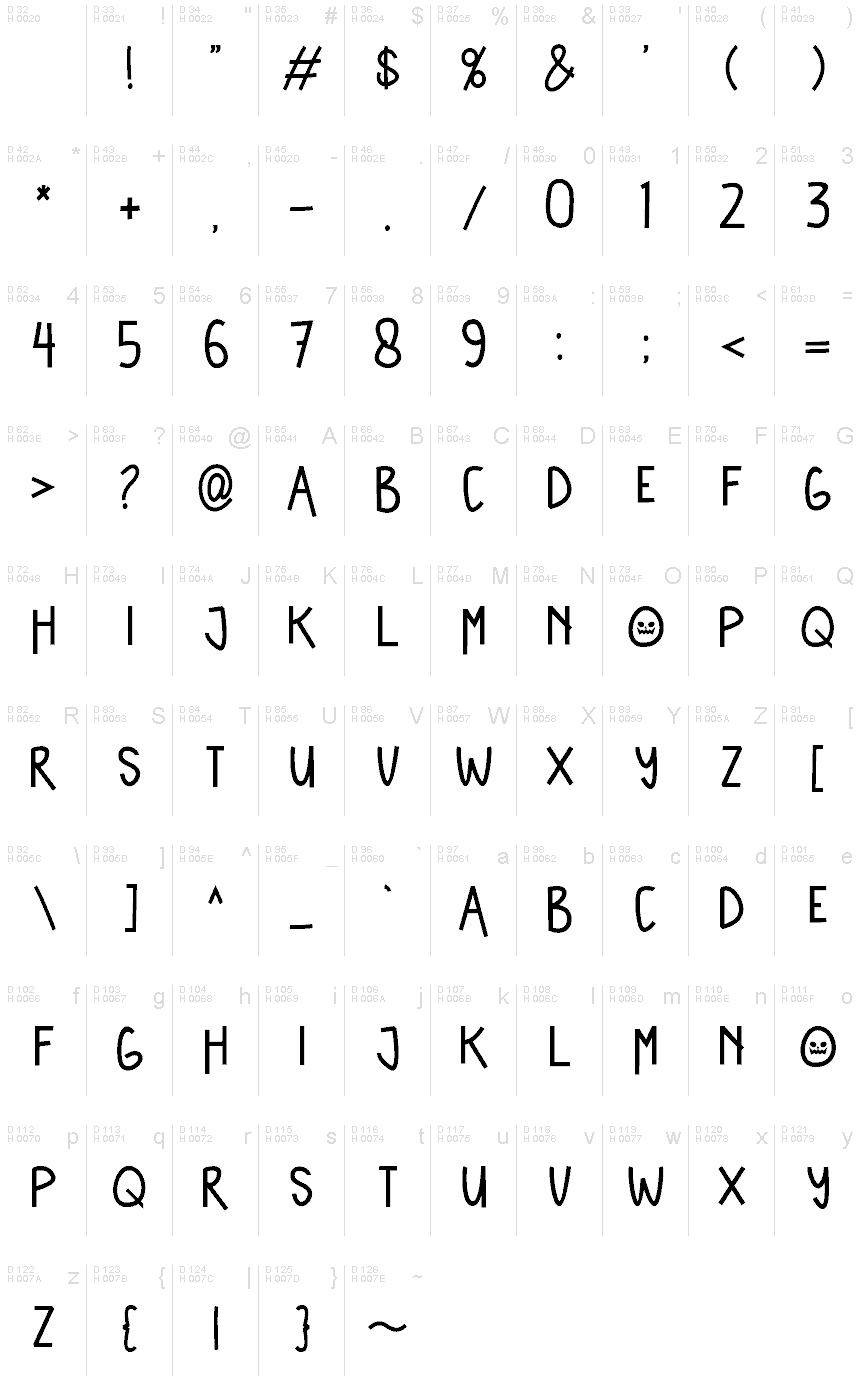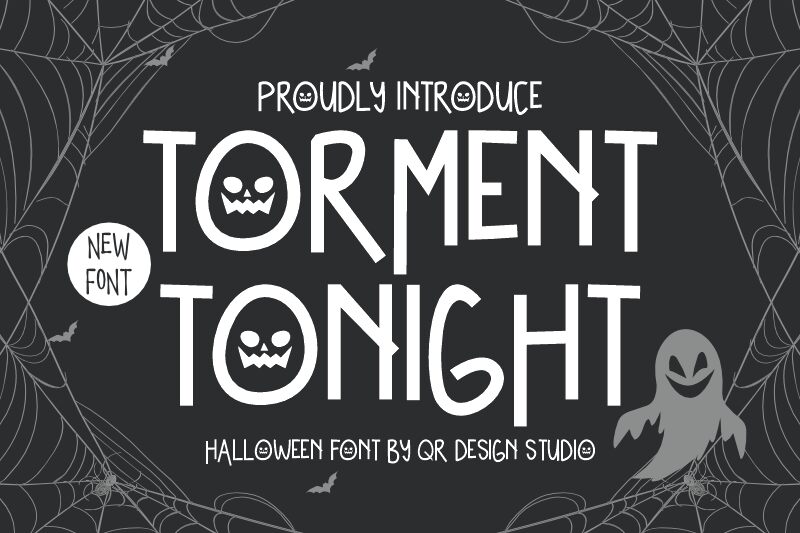
Torment Tonight
Torment Tonight font is a bold and authentic display font by Qr Design. This condensed typeface has an unusual look with quirky shapes and whimsical vibes. Decorated with thinner lines on the main heavy strokes, it takes upon cartoonish influences in its design. Unapologetically spooky and Halloween-themed, this typeface likes to keep things playful.
Creative individuals are invited to incorporate Torment Tonight into Halloween invitations or curse words on spell books covers for some dark magic vibes. Its decorative touch can be part of product packages, posters, headlines, branding projects like logos, and many more. This free font will fit children’s book covers or even sports team posters.